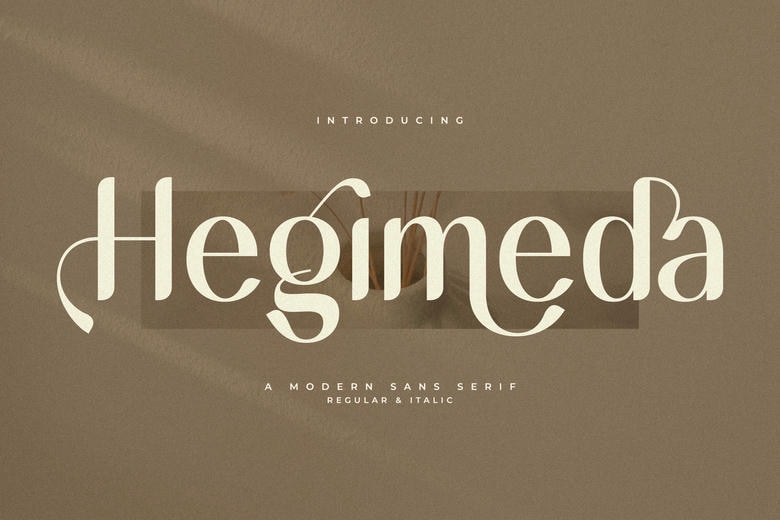
Hegimeda Font
Hegimeda font is a sans serif typeface that is quite versatile in design but has its looks all to it. In this course typeface, it will blend well with luxury logo, fashion line, magazine, apparels, lettering, quotes, and many more.
Hegimeda Sans Serif Font